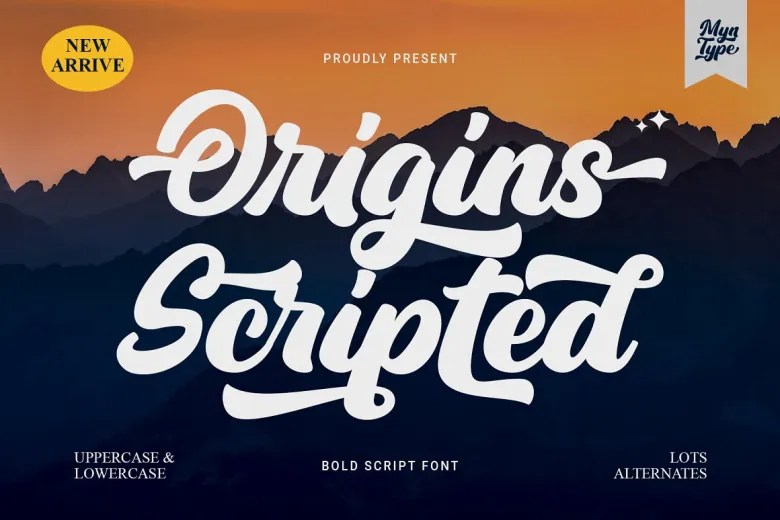
Origins Scripted Font
The Origins Scripted font finds a unique balance between boldness and finesse, exuding both confidence and subtle sophistication through its intricate curves and delicate embellishments. This combination allows it to shine in designs like identities, posters, or invitations, ensuring any message stands out with both elegance and flair.
With its bold strokes and vibrant letterforms, Origins Scripted makes an excellent choice for various design applications. From headlines to branding materials and marketing campaigns, its eye-catching design and dynamic letterforms lend a powerful yet tasteful impact to any medium. This font’s adaptability ensures that it adds appeal wherever your message needs to make a statement.